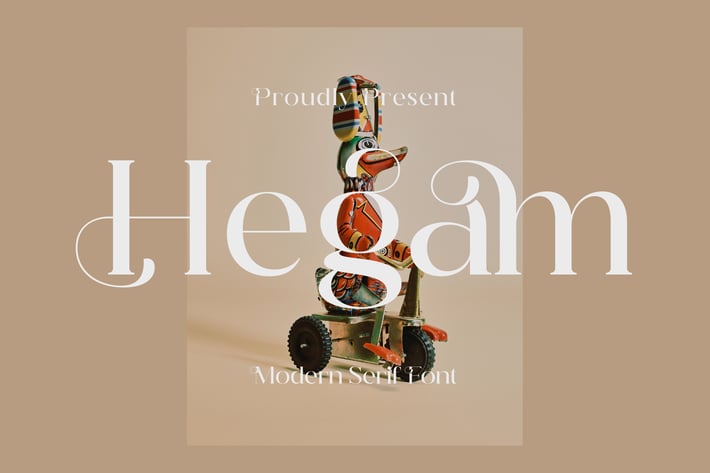
Hegam Serif Font
Hegam Serif Font brings a refined and modern serif style to your projects. With its sleek curves and elegant proportions, this typeface adds sophistication and contemporary flair to any design. Perfect for luxury branding, editorials, packaging, and creative headlines.
+ Modern serif design with stylish details
+ Clean and elegant letterforms
+ Works beautifully in large and small sizes
+ Branding & identity
+ Editorial & magazine layouts
+ Packaging & product labels
+ Social media graphics
+ Invitations & stationery
Elevate your designs with Hegam – a modern serif font that blends elegance and sophistication seamlessly.